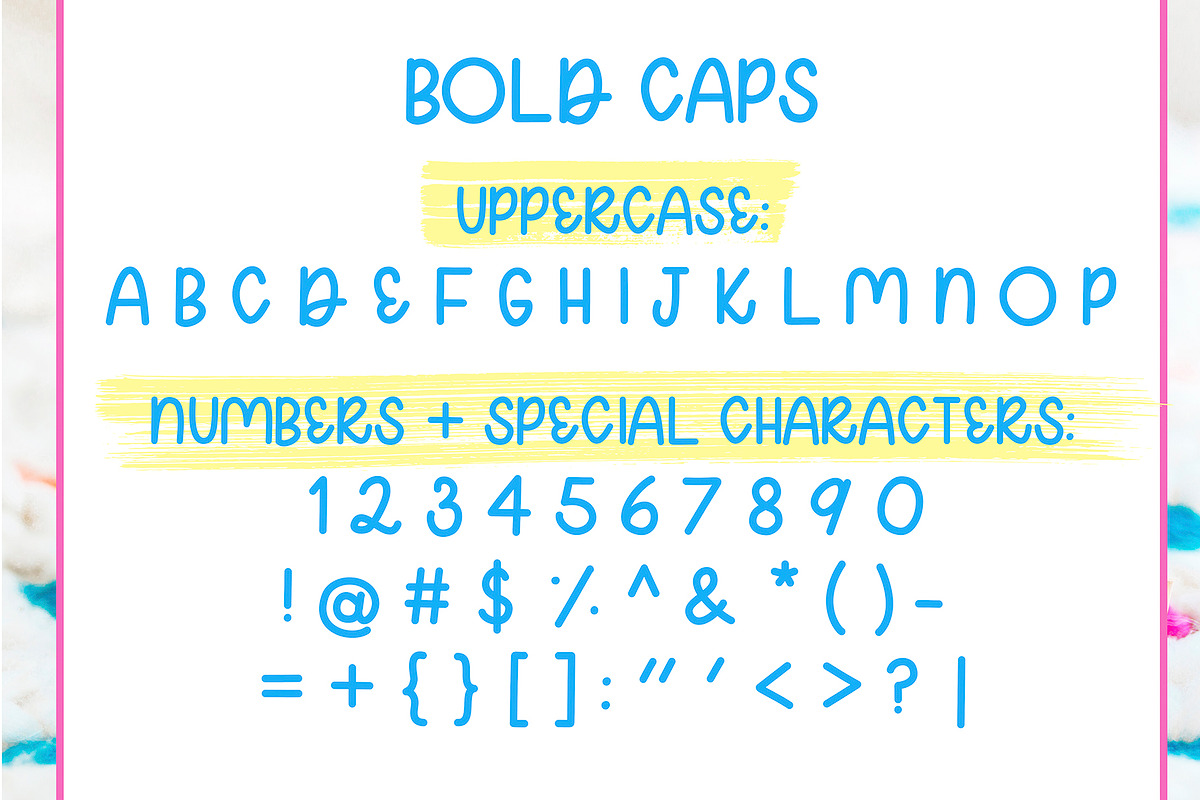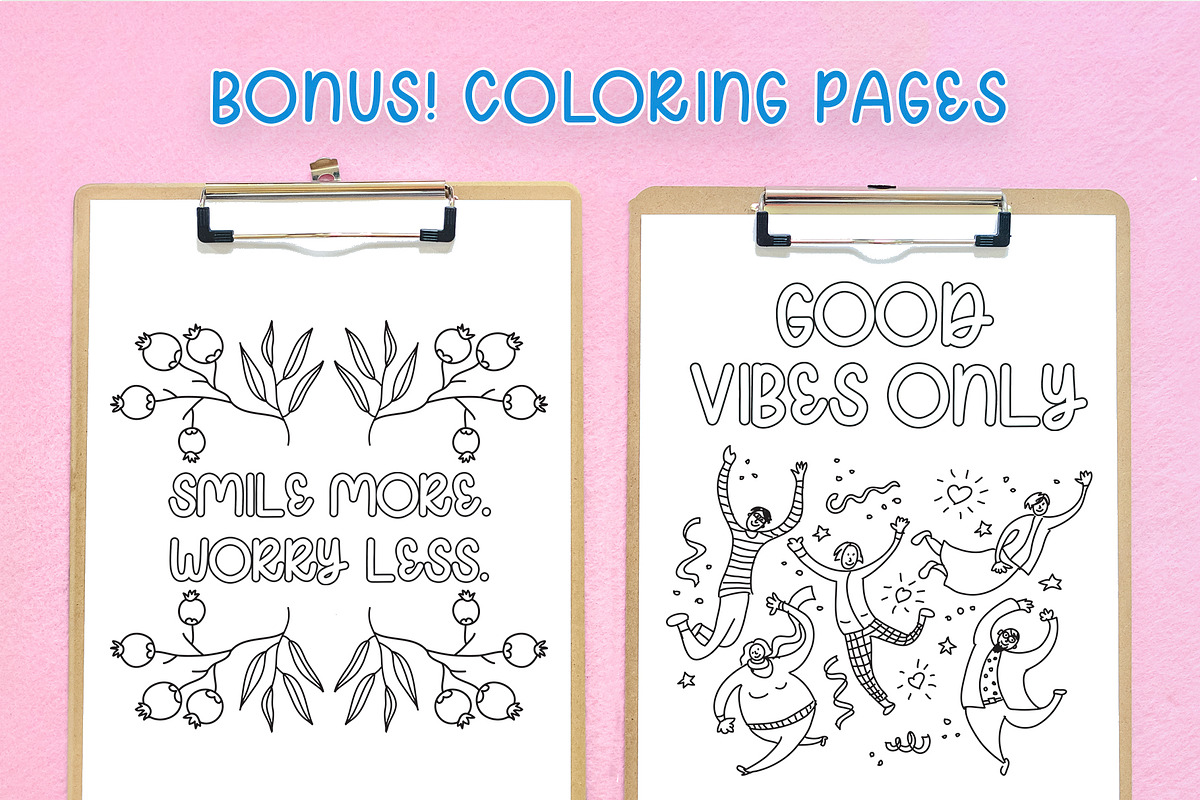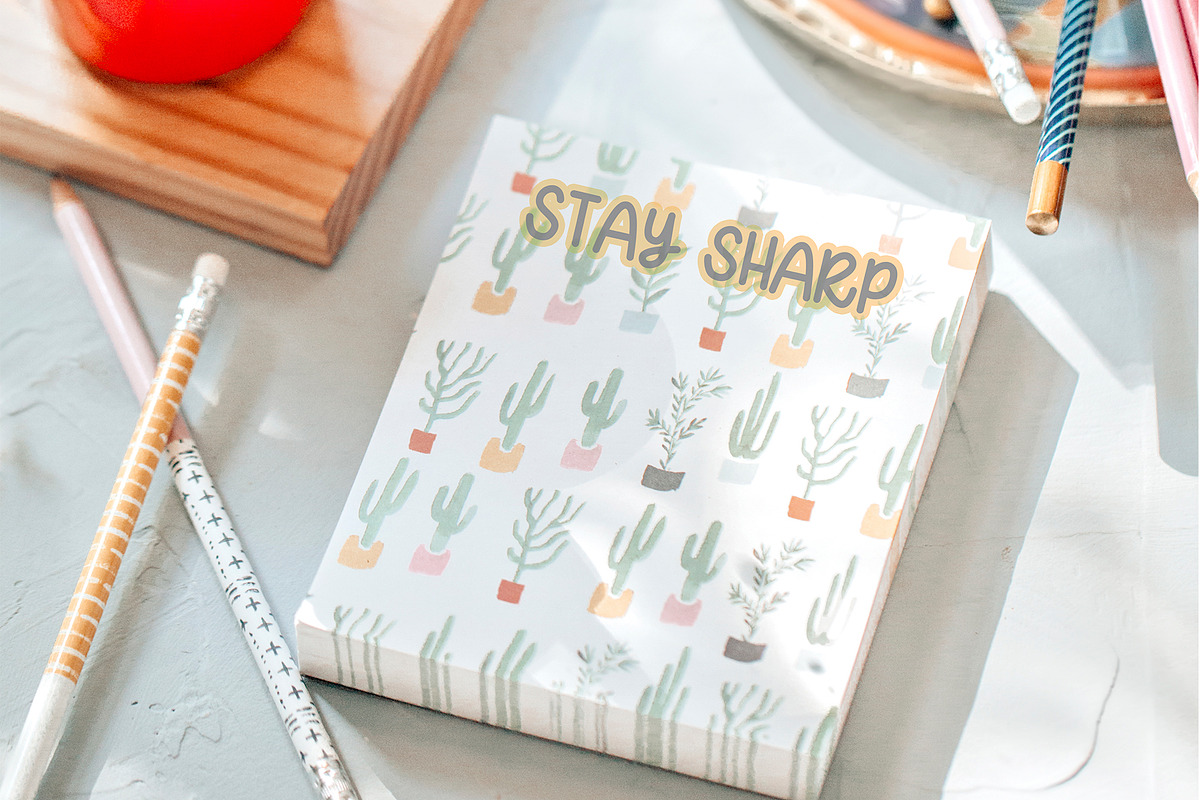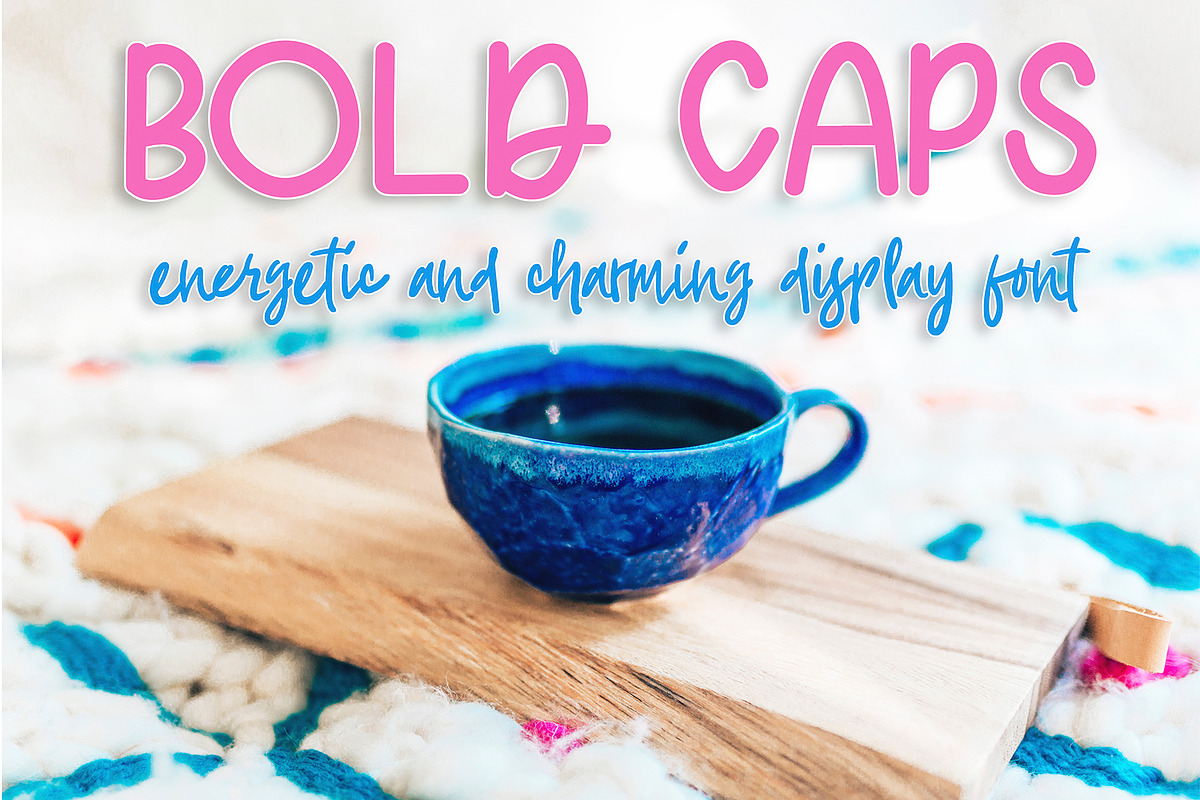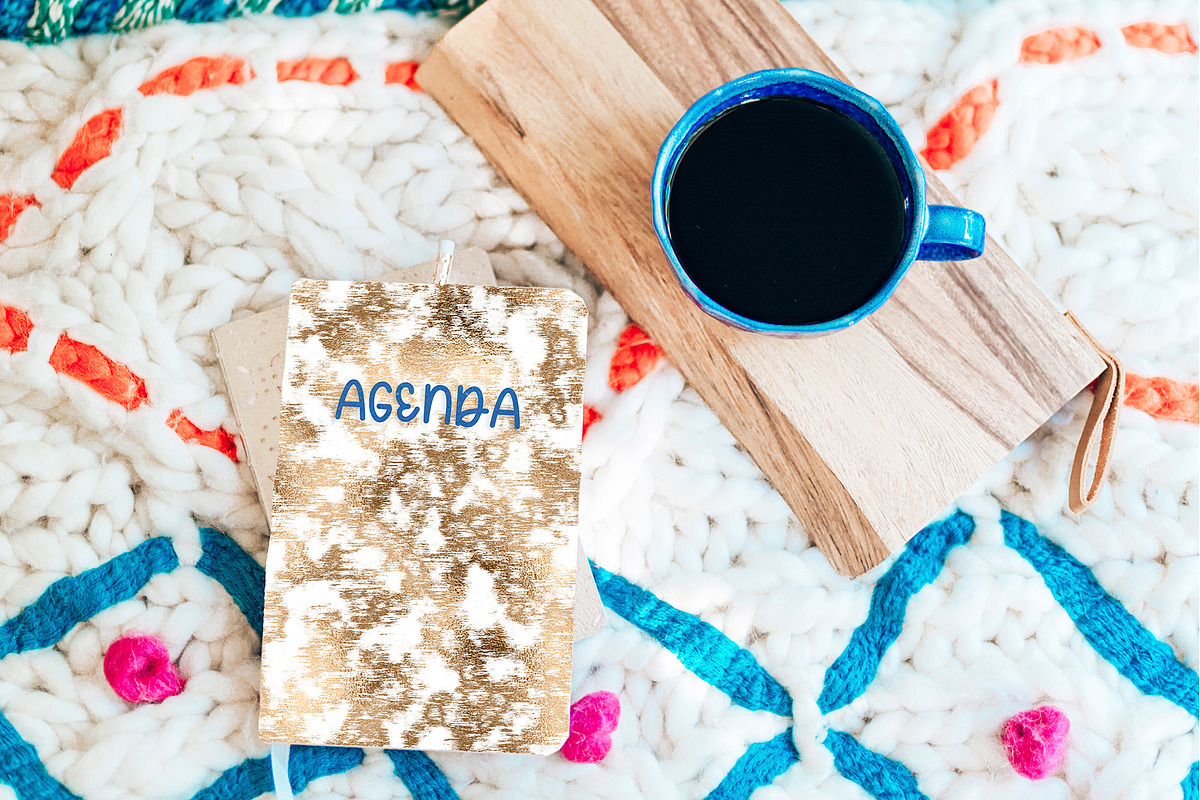
Bold Caps Handwritten Display Font
Amp up the energy with Bold Caps, a fun and playful handwritten display font!
Perfect for kids, notebooks, branding, social media, packaging, prints and more!
Bold Caps is an all uppercase alphabet with a curvy flair that makes it feel like real handwriting.
A full handwritten uppercase alphabet with numbers and symbols